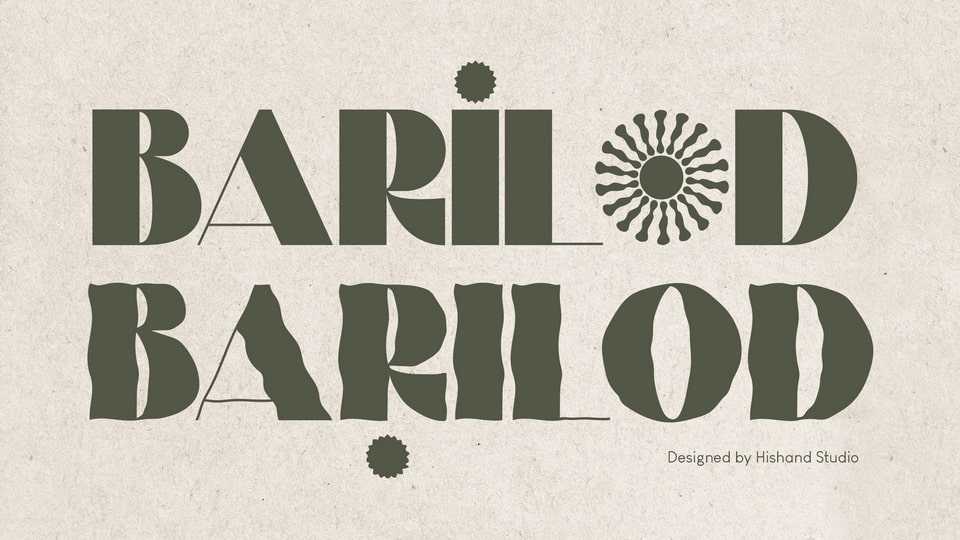
Download Barilod font, a sans serif typeface inspired by tropical vibes, it brings cozy charm to your designs. With bold strokes and playful curves, it’s like a vacation for your text perfect for posters, branding, and social media.